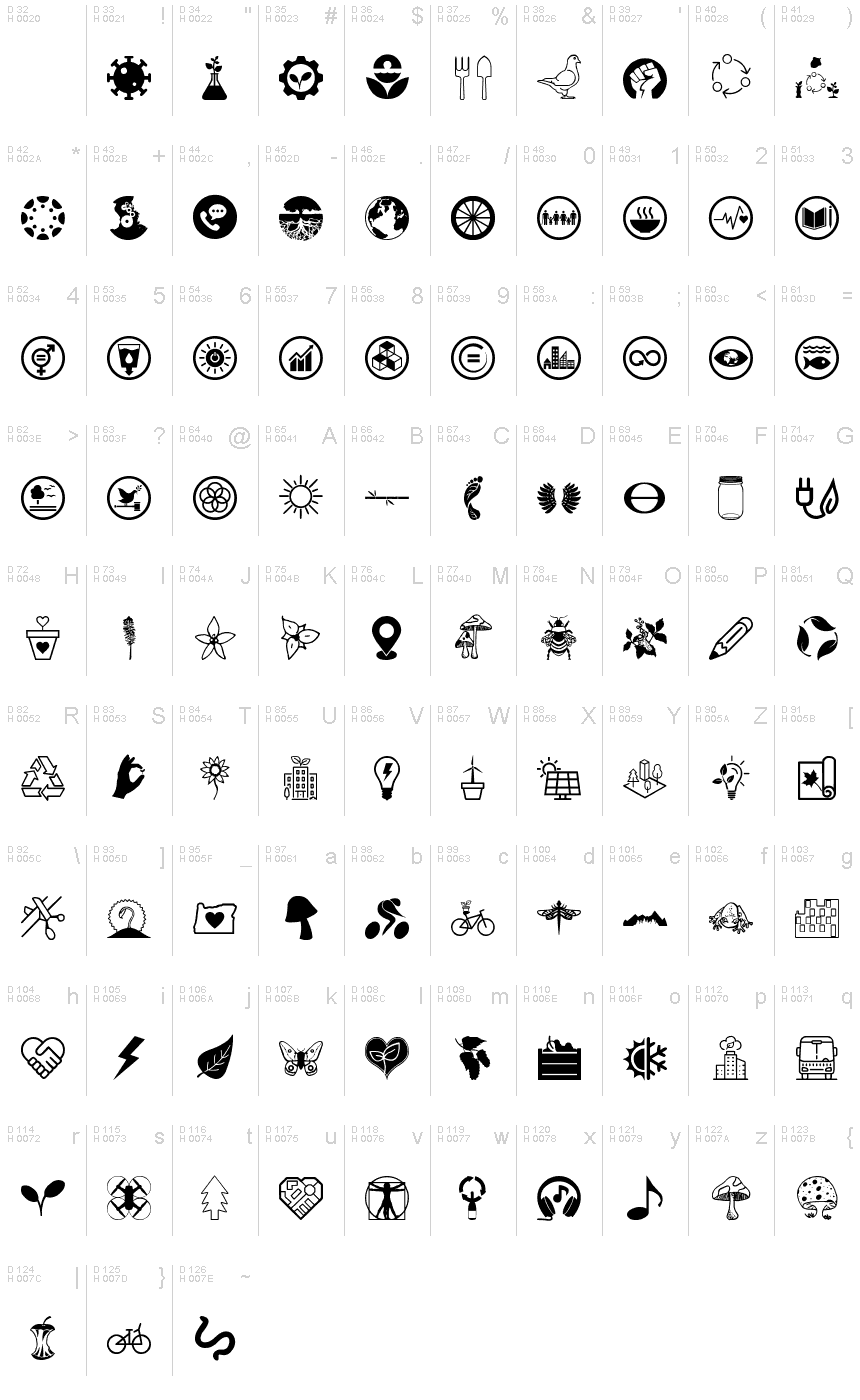
UrbanEcology
More than 100 urban ecology icons created and compiled by Green Cities students. https://blogs.uoregon.edu/urbanecology/ This font includes the UN Sustainable Development Goal symbols.